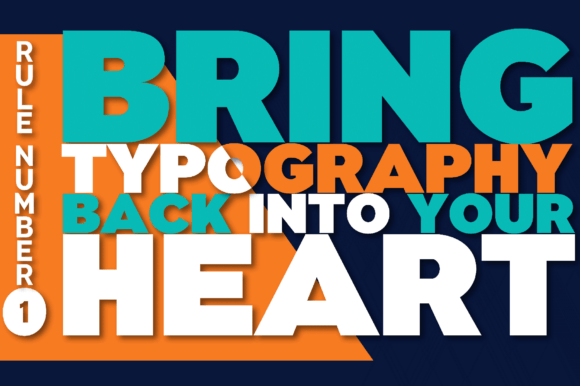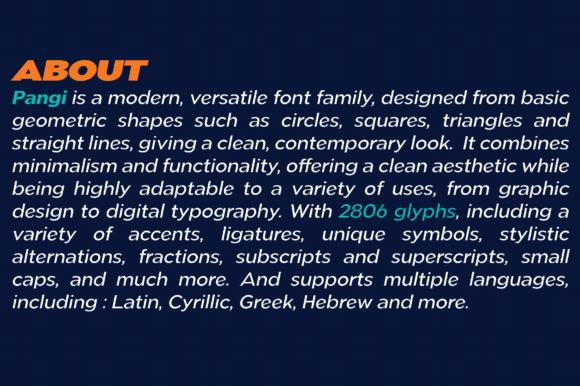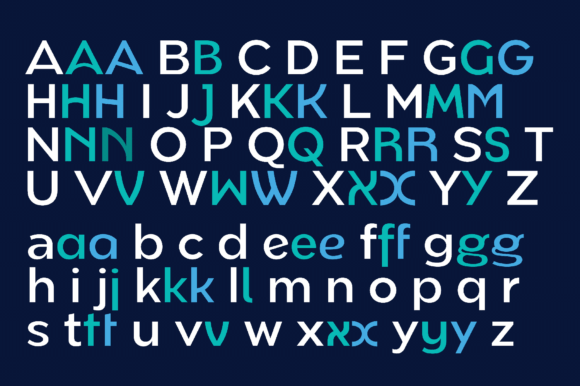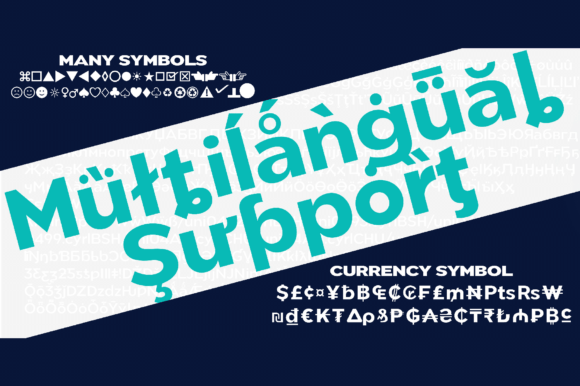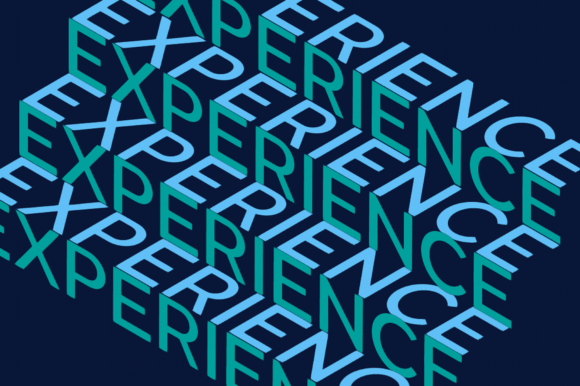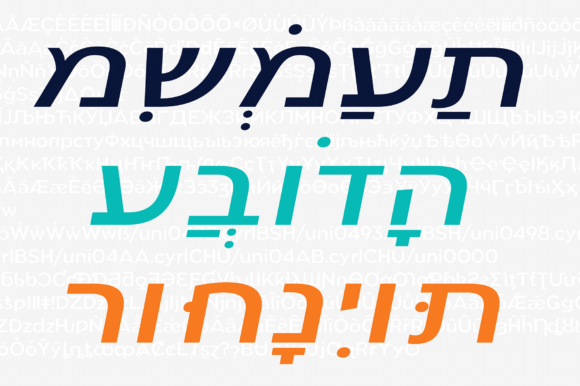
Introduction to Pangi Regular Font
Pangi Font Family: A Geometric Masterpiece in Typography Rooted in geometric purity, Pangi is a modern sans-serif font family designed for versatility and functionality.
Its foundation of circles, squares, triangles, and lines harmonizes minimalism and adaptability, making it an invaluable asset for graphic design and digital typography With an extensive array of uses, Pangi ensures both aesthetic appeal and practical application.
Key Features of Pangi Regular Font